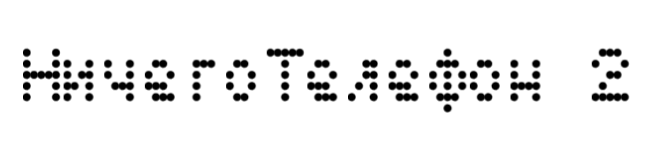
@Dmitriy Sychiov (Sychoff) - It's a wonderful little dot matrix font.  What's not to love?  ;^)
I concur.
Did you forgot a dot here by any chance?
And щ has the 2 left lines sticked for sore reason.
€ looks weird.
As I understand it, the release of the new phone caused a lot of new downloads. This name is NothingPhone in Russian. It's a pity that the font itself in their operating system does not have Cyrillic. But what if the developers one day look here and copy these letters?
Congratulations! FontStruct Staff have deemed your FontStruction worthy of special mention. “Nothing Font” is now a Top Pick.
Congrats on the TP, Dmitriy!
This is a great recreation, and the cyrillic copies the original style very well. Congrats on the TP!
@elmoyenique, @Sed4tives: Thank you, although I feel like I don't deserve the credit in this case, justified impostor syndrome. I literally did NOTHING in this font, I first just copied it, made it Cyrillic, and only then changed a couple of letters so that scammers wouldn't use it.
It's the marketing power of the original phone designers that allowed it to get so many downloads, but it's a good case study of how a font can create brand awareness and as far as I know, they are now abandoning this font in the interface because it's hard to read (which is a shame).